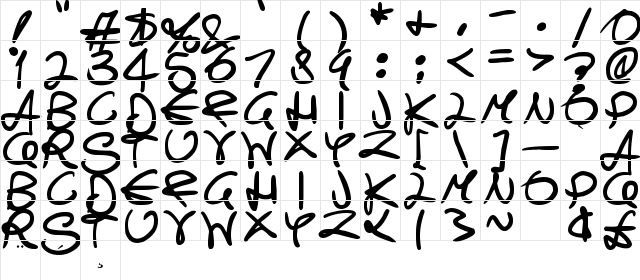
Swirly Curly Inks Regular
Design Context for Swirly Curly Inks Typeface
Swirly Curly Inks is built around its visual character rather than neutral utility — its distinctive forms are designed to make an impression at display sizes.
Font Pairing: Pair with a clean neutral sans-serif for body copy to let Swirly Curly Inks's character lead without overwhelming the composition.
Pro Tip: Treat Swirly Curly Inks as the centrepiece of your typographic hierarchy. One strong heading set in a decorative face can carry an entire layout.